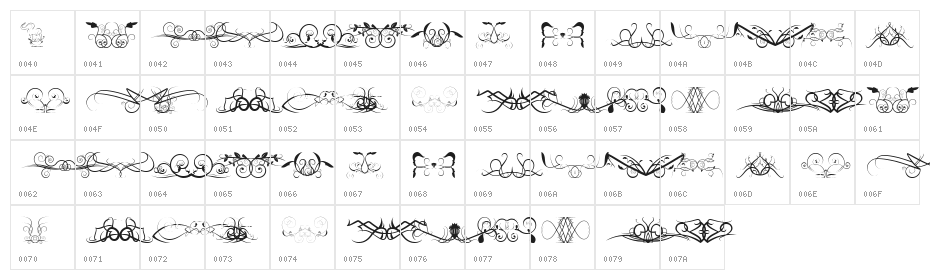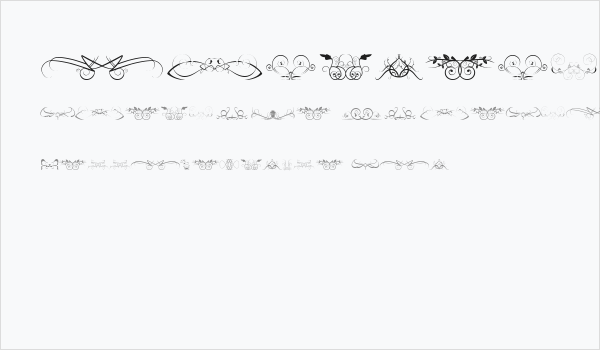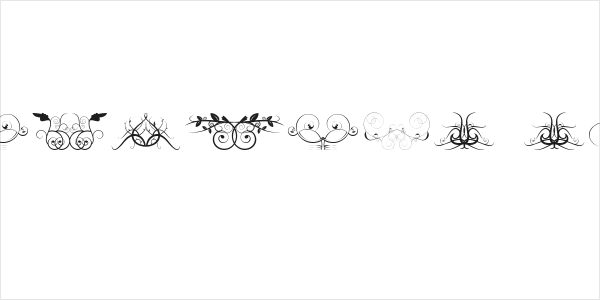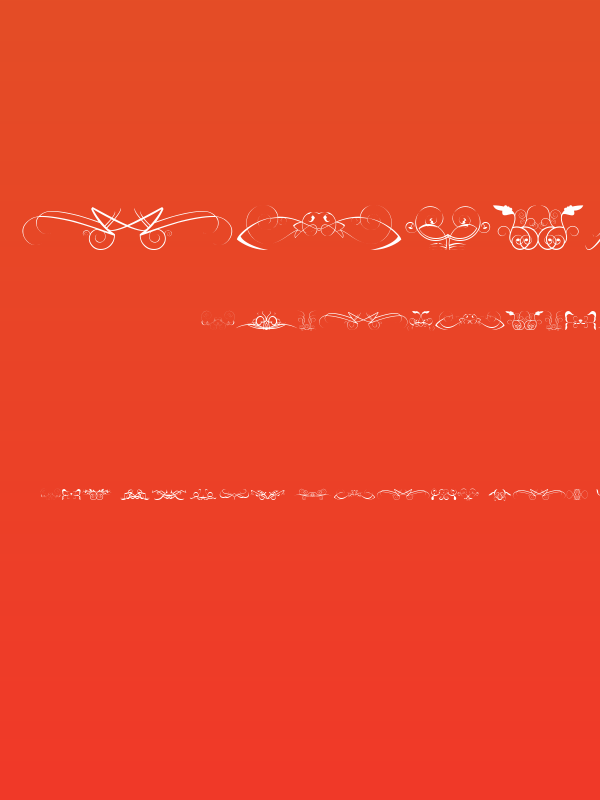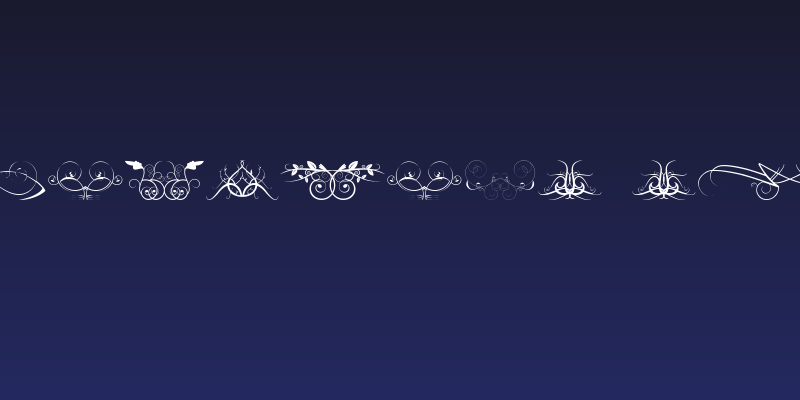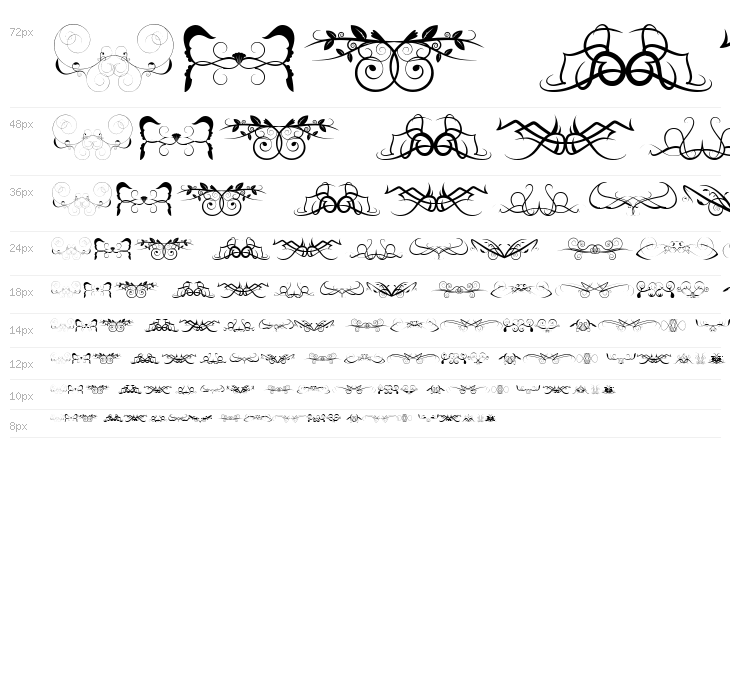
Ornaments soul Font
Ornaments soul Description
A collection of highly decorative, intricate ornamental glyphs featuring flourishes, swirls, and botanical motifs, designed for embellishing text or borders rather than for standard alphanumeric communication.
| Overall Style | Vintage, Decorative |
| Use Case | Ornaments, Borders, Decorative accents |
| Proposed Projects | Wedding invitations, certificates, decorative borders, vintage-style packaging, book covers. |